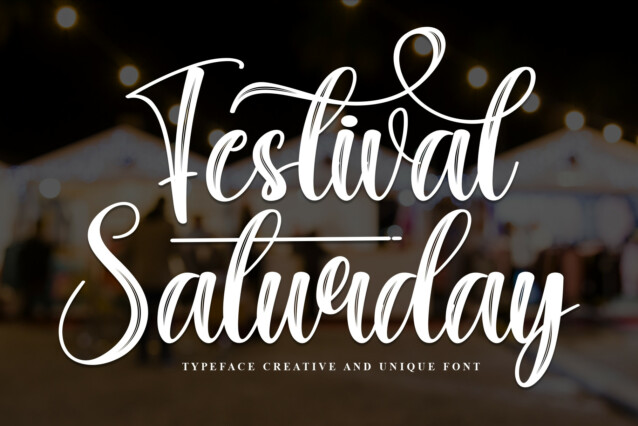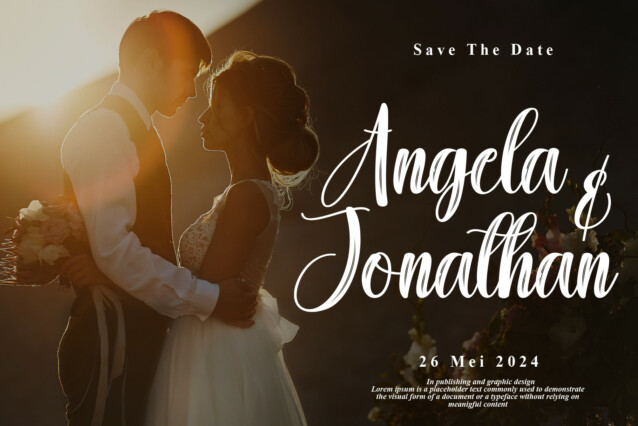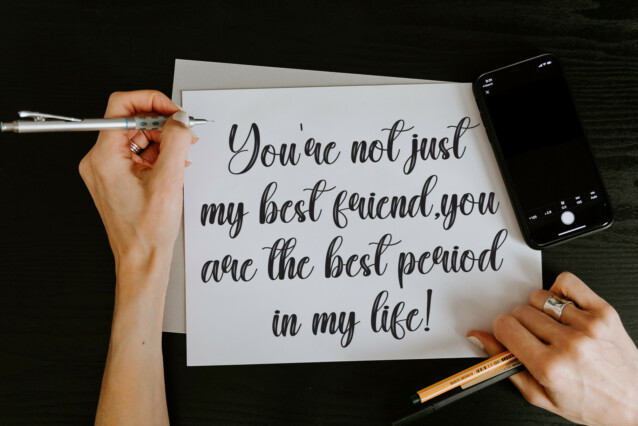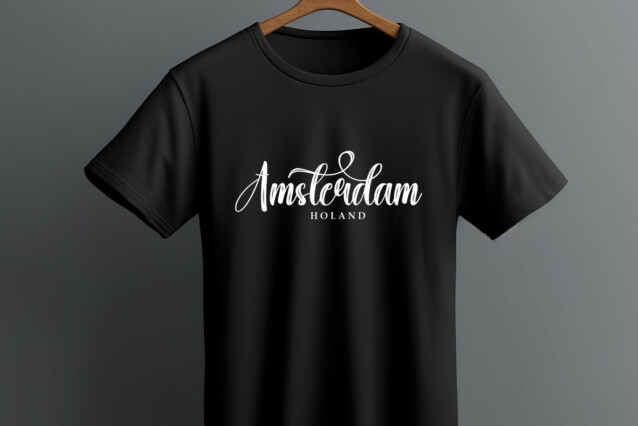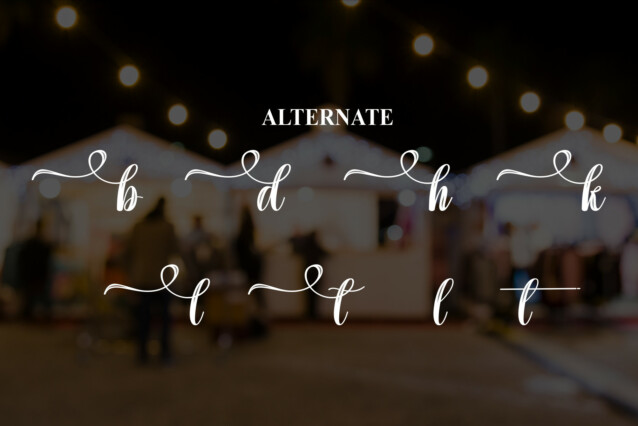
Festival Saturday Brush Font
Festival Saturday Brush Font is a modern and charming handwritten font that exudes elegance and personality. Its graceful, flowing strokes and sophisticated character make it perfect for upscale invitations, personal branding, and chic editorial designs. Elevate your projects with the refined allure and warmth of this font.